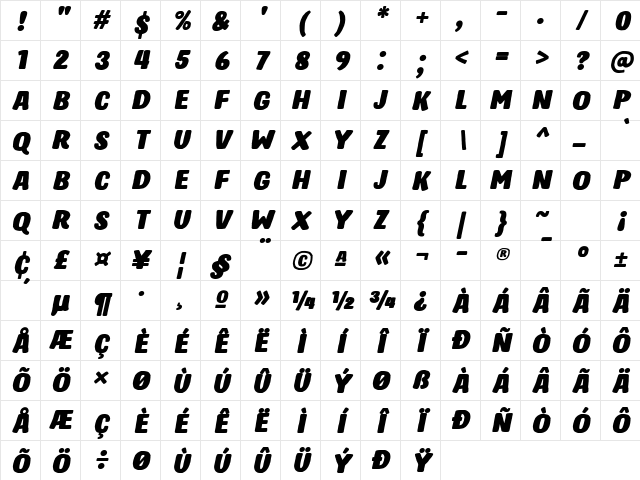
Hastro Italic Free Font
Hastro Italic
Foundry: 7NTypes
Designer: Situjuh Nazara
Design Context for Hastro
Hastro is a composed and adaptable typeface that performs quietly and consistently across a wide range of design contexts. The slanted form adds forward momentum and visual energy.